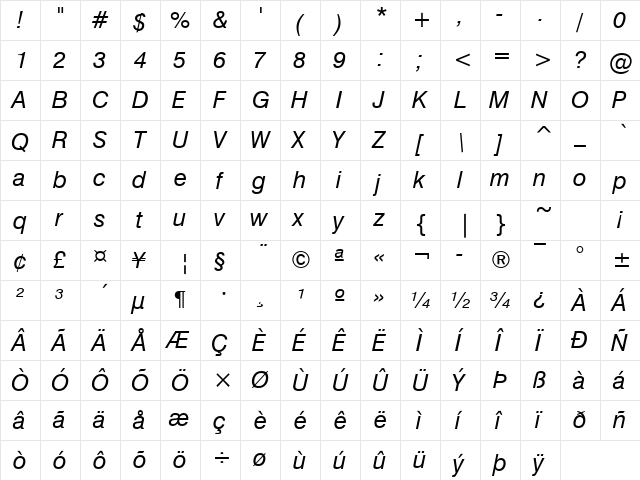
Geneva Italic
Design Context for Geneva Typeface
Geneva takes a measured approach to typography — its balanced proportions and neutral character make it a reliable workhorse for both digital and print work. The slanted form adds forward momentum and visual energy.
Pro Tip: Try Geneva for annotation and caption copy alongside an upright companion — the contrast in angle creates a dynamic but ordered typographic system.